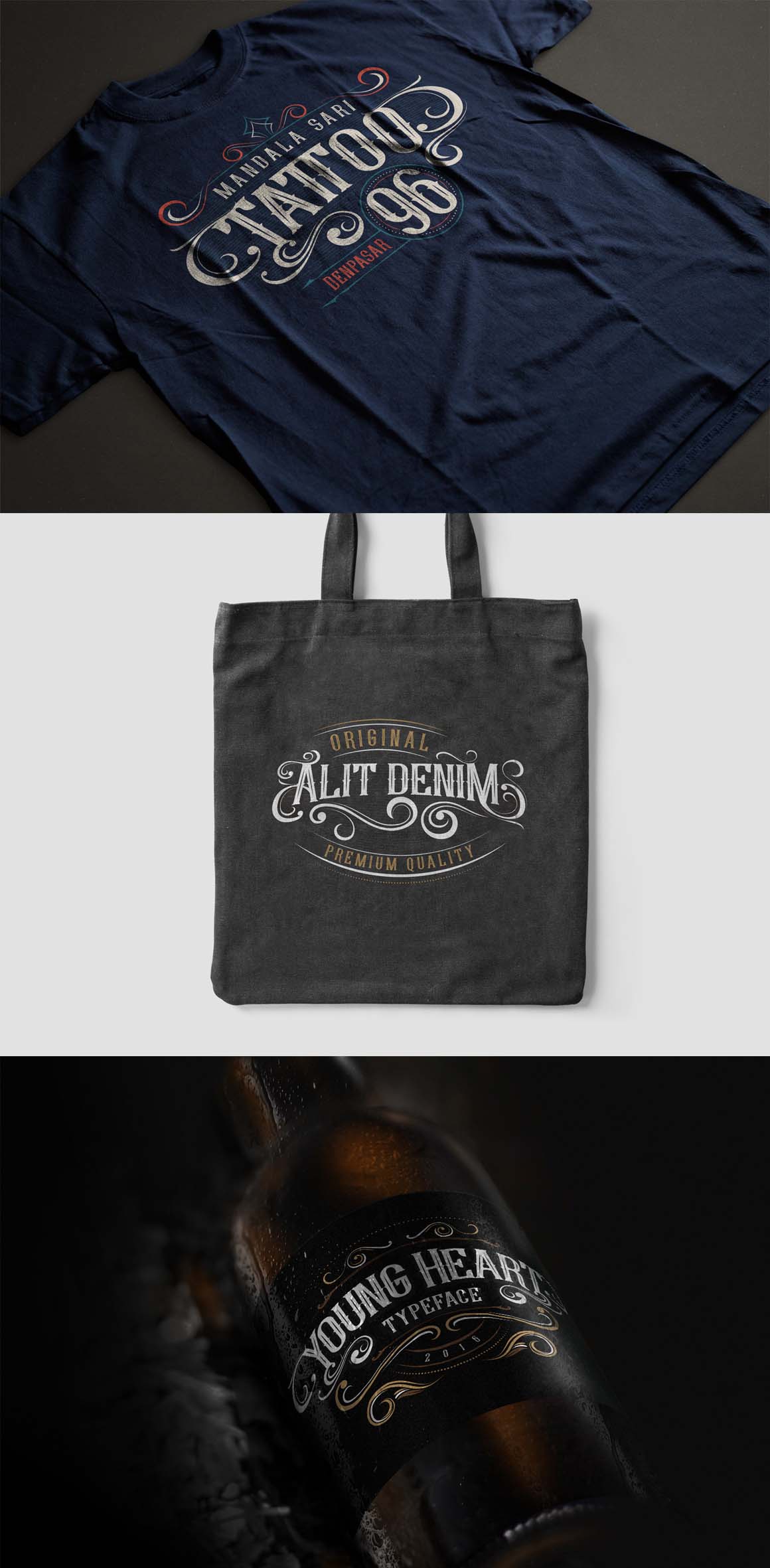
Young Heart – Free Font
This creative & vintage style font is from AlitDesign. Great for your new creative projects. Free version is with all letters and numbers. Download and enjoy 😉